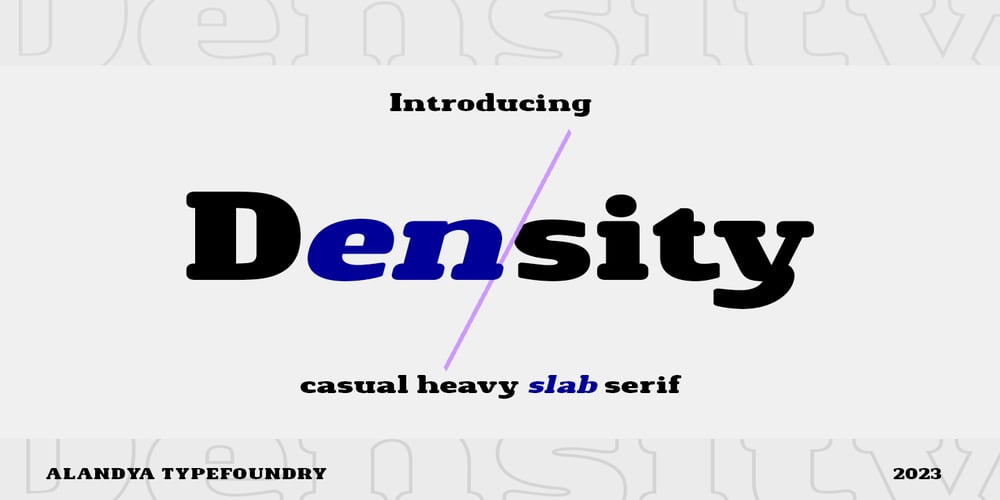
Density
Density font
Density Font Family was designed by Cut Nurfajarlia and published by Alandya TypeFoundry. Density contains 8 styles and family package options. Density Heavy Slab SerifFeatures a smooth slab serif and a wide surface that makes it especially suitable for horizontal and lengkungan compositions. This is a front view, best used at larger sizes when weight and impact are desired.It’s classic with a modern edge and most importantly packed with different styles, and ligaturesDensity is a heavy slab serif that comes with regular, oblique, outline slanted, rough, rough slanted, extrude and extrude slanted style. this font is perfect for every project. suitable for branding logo, badge design, or apparel design. This font also comes with multilingual support.